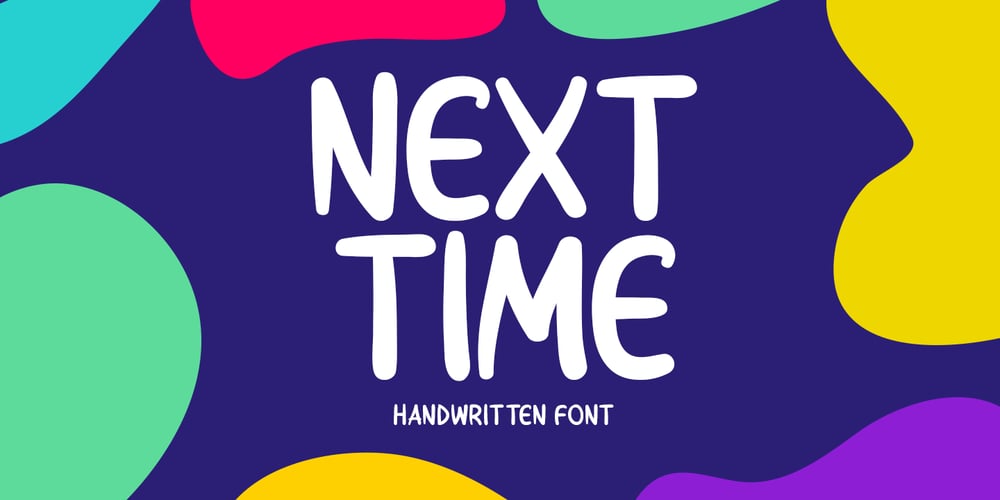
Next Time Font Family was designed by Md Shohail Bhuian and published by Seemly Fonts. Next Time contains 1 styles and family package options. Next Time is an incomparable and simple handwritten font. It can easily be matched to an incredibly large set of projects, so add it to your creative ideas and notice how it makes them stand out!